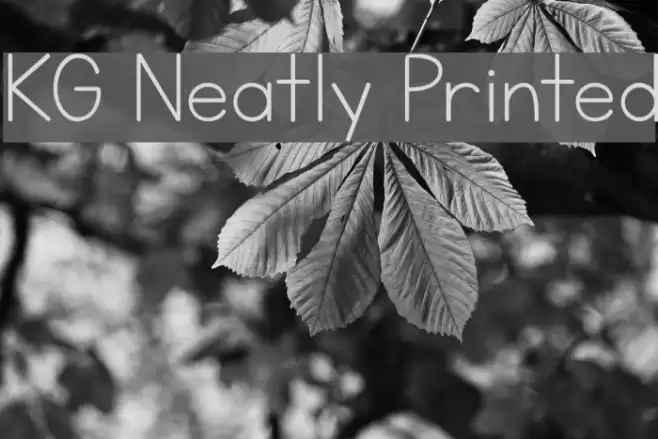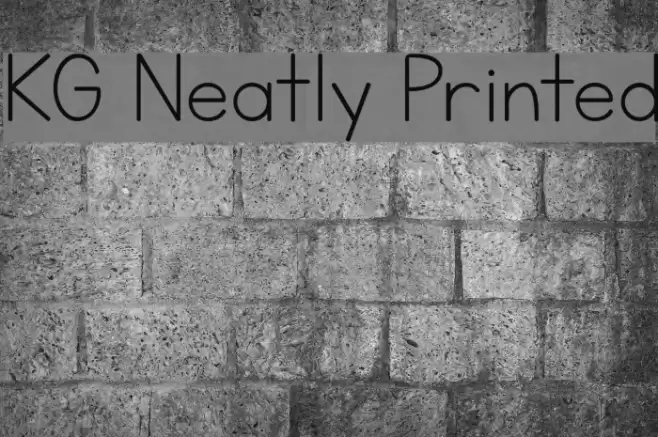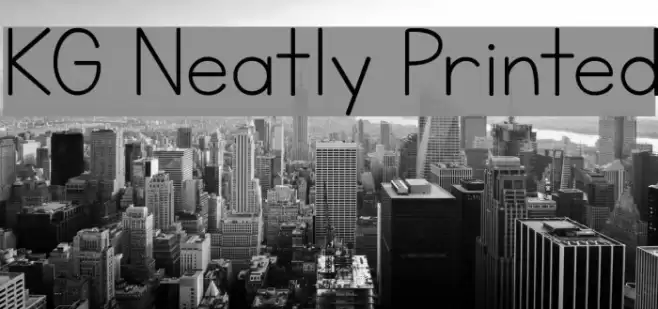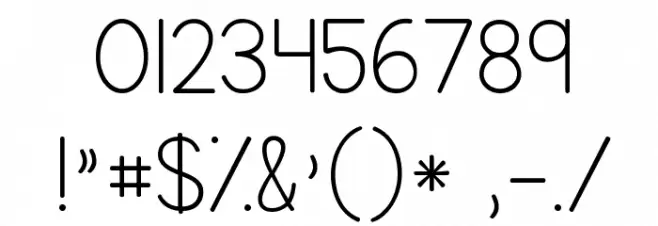
KG Neatly Printed Font
KG Neatly Printed Description
This font features a clean and simple design with rounded edges, giving it a friendly and approachable appearance. The characters are evenly spaced, contributing to its readability. The uppercase and lowercase letters maintain a consistent style, with a slight variation in stroke width that adds a subtle touch of elegance. The numerals are clear and distinct, making them easily legible. Special characters are well-integrated, maintaining the overall aesthetic of the font. This font is versatile and can be used in various design contexts.
A clean, rounded font with a friendly and approachable style from Uncategorized fonts.
- Proposed Projects: Ideal for educational materials, children's books, casual branding, and digital content.